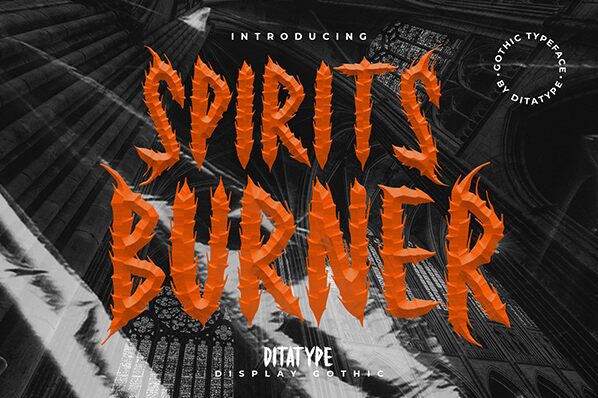
Spirits Burner font by Ditatype offers condensed gothic style letters with a modern but rugged appearance. The edgy typeface comes with gothic undertones that are a result of the sharp and unique characters. Spikes, intense angles, and distressed edges all combine to create this masterpiece of impactful design.
Some practical use cases of Spirits Burner are logos, packaging, signage writing, merchandise design, apparel prints (especially on t-shirts), labels for powerful products such as energy drinks, posters for anticipation-building events such as concerts or matches, book covers such as for horror or mystery novels, and music cover albums especially rock or metal.